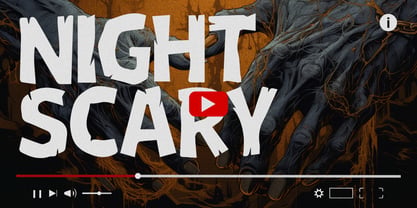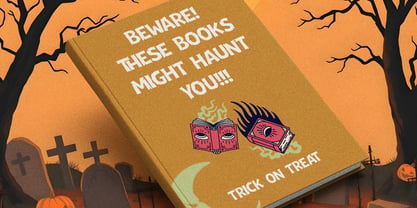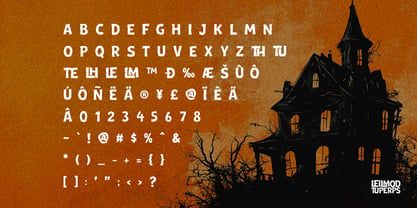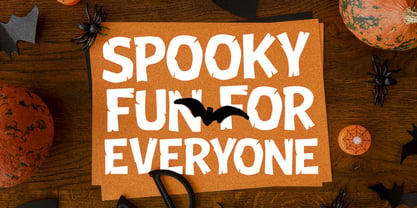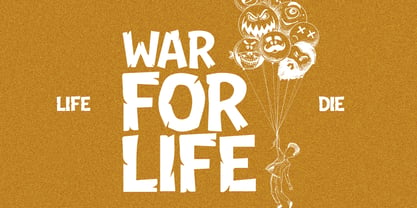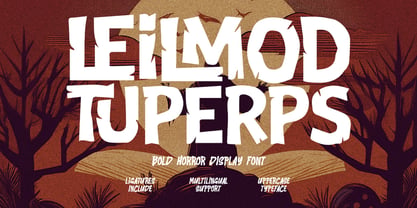
Leilmod Tuperps
Leilmod Tuperps is a striking bold horror display font designed to bring a thrilling and eerie atmosphere to creative projects. Characterized by its sharp, jagged edges and uneven, raw structures, this typeface perfectly captures a spooky, haunting vibe. Featuring an uppercase character set, unique ligatures, and comprehensive multilingual support, it serves as an excellent choice for crafting high-impact titles, cinematic posters, book covers, website banners, social media graphics, and creative designs themed around Halloween, mystery, or dark fantasy.